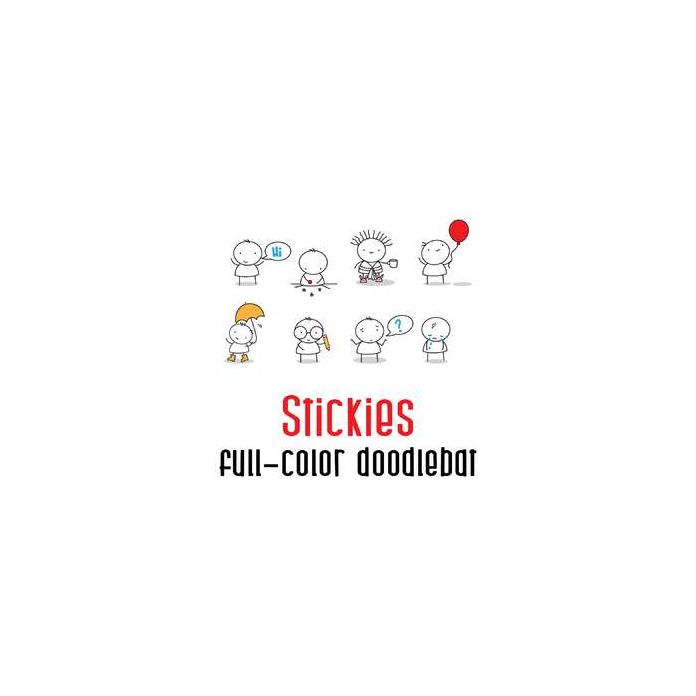
This adorable full color doodlebat font features cute stick figures. Perfect for cards, crafts, gifts, decor, scrap book pages, planner stickers and more!